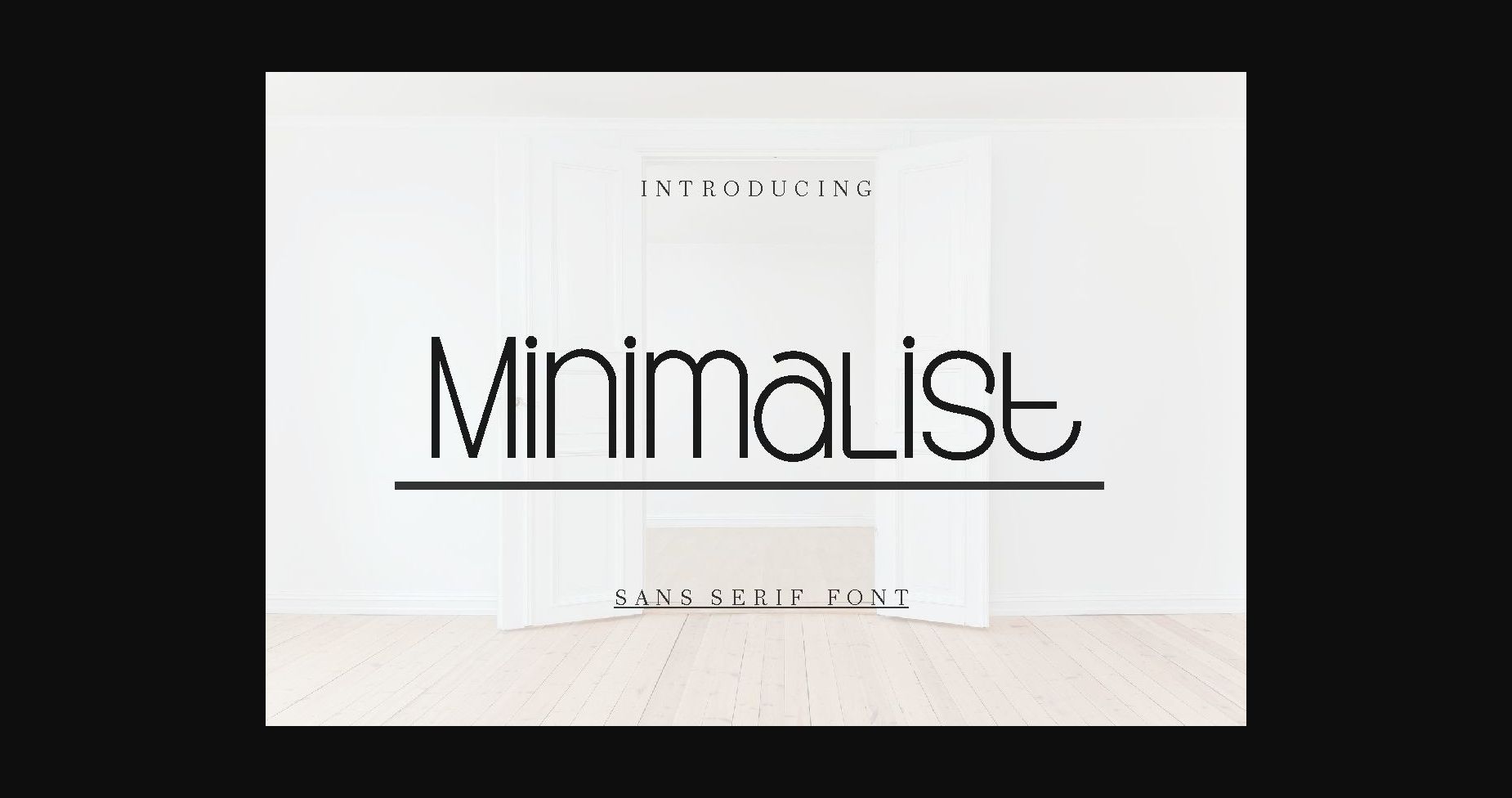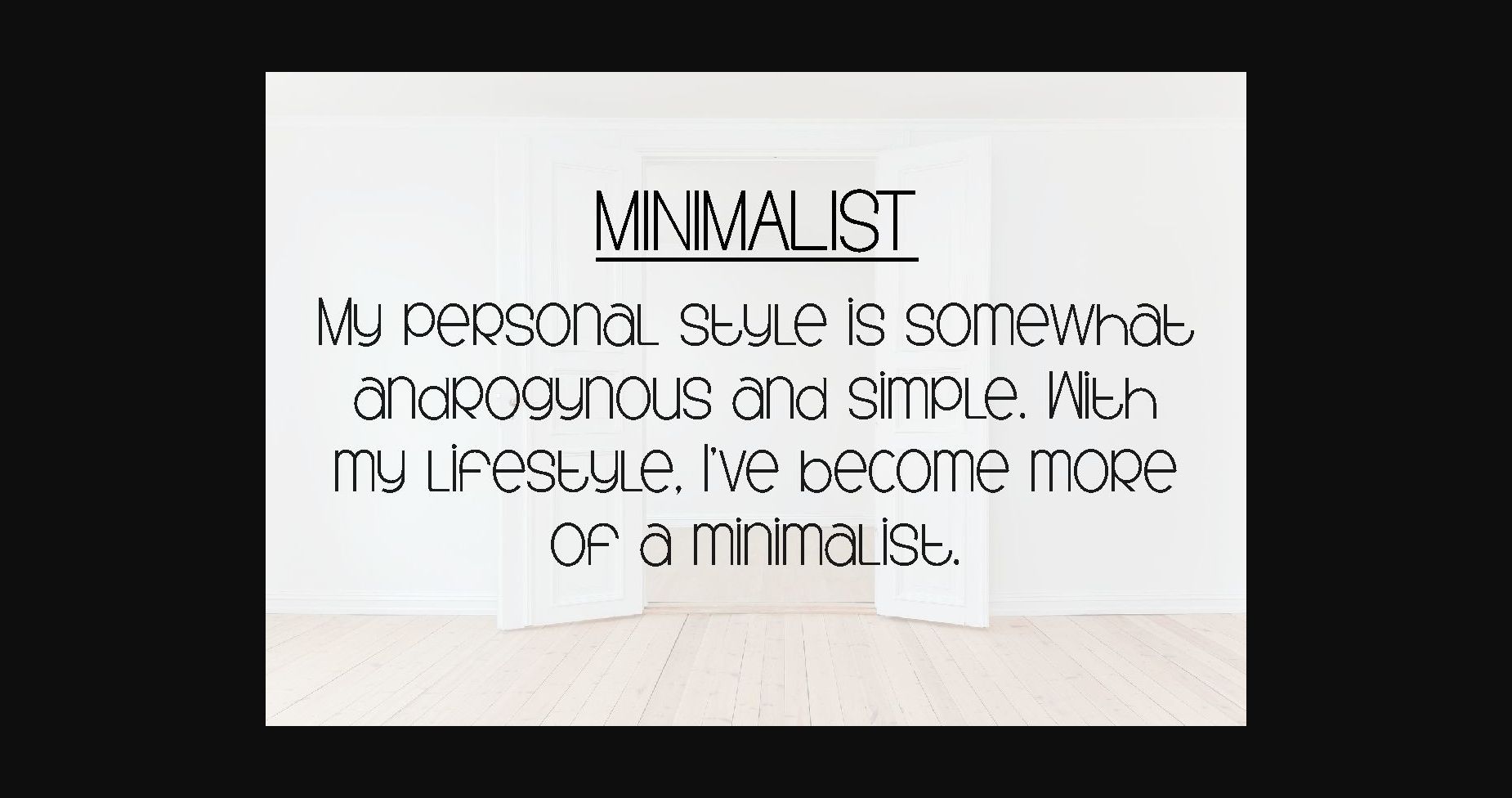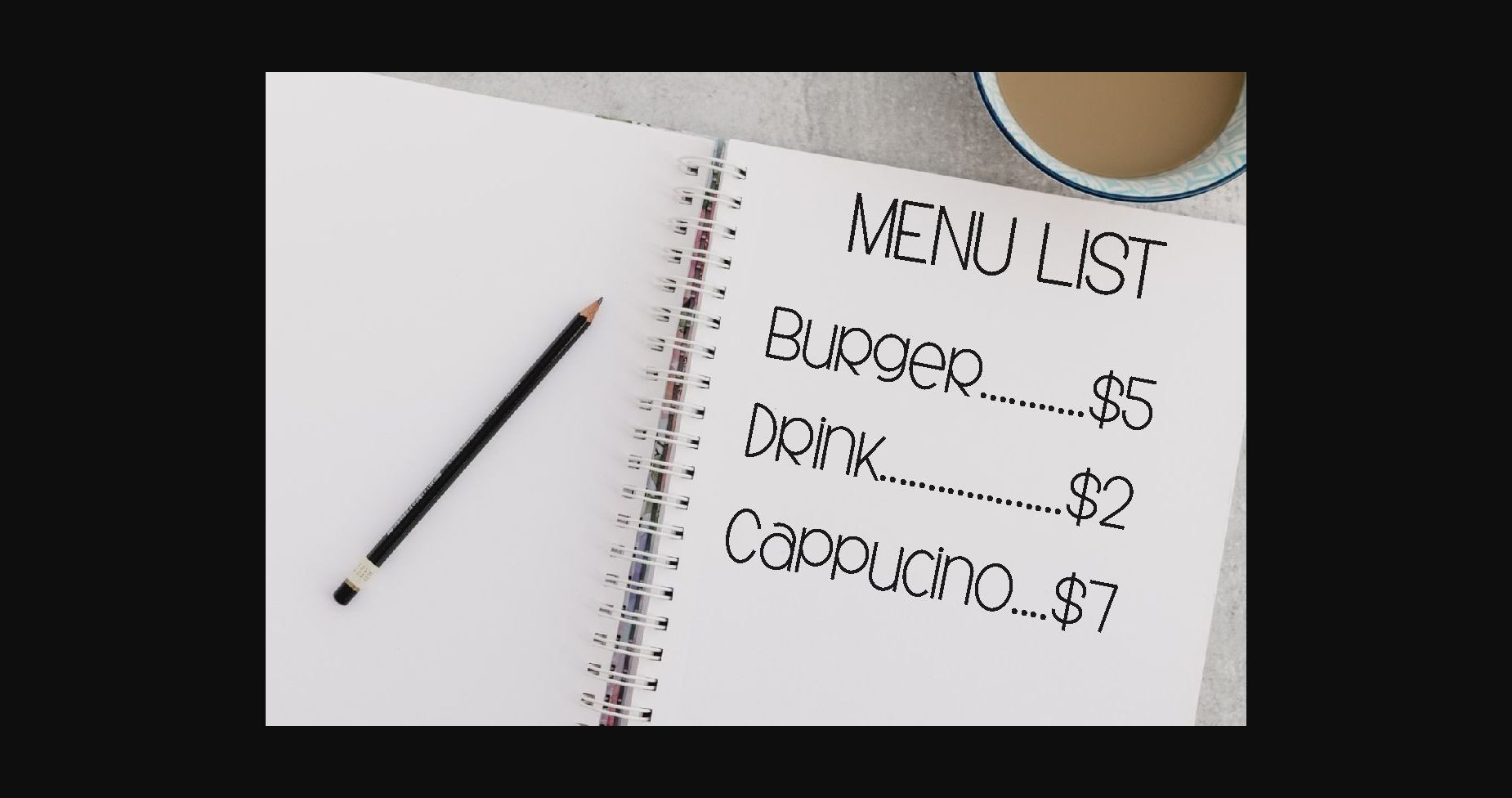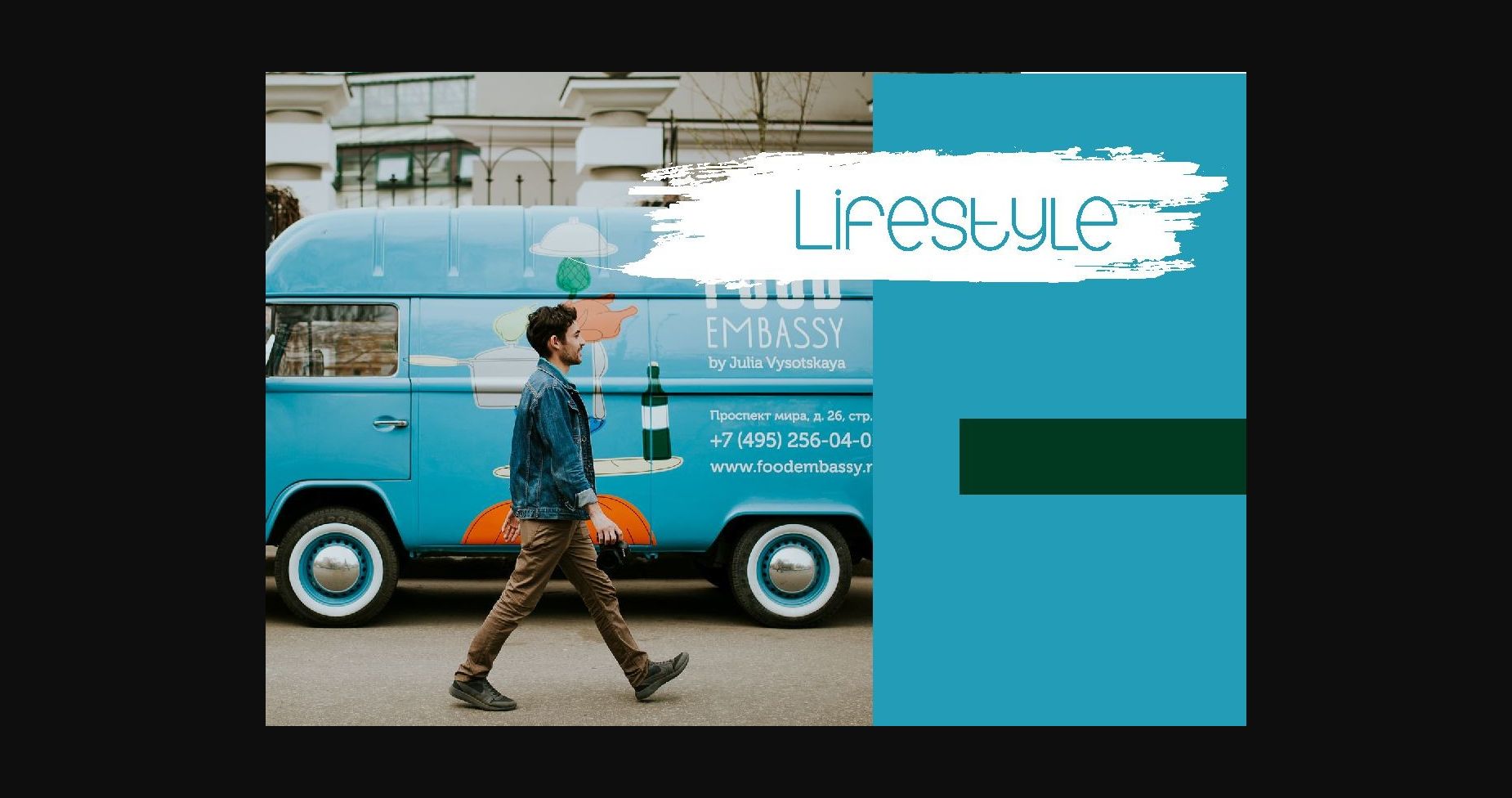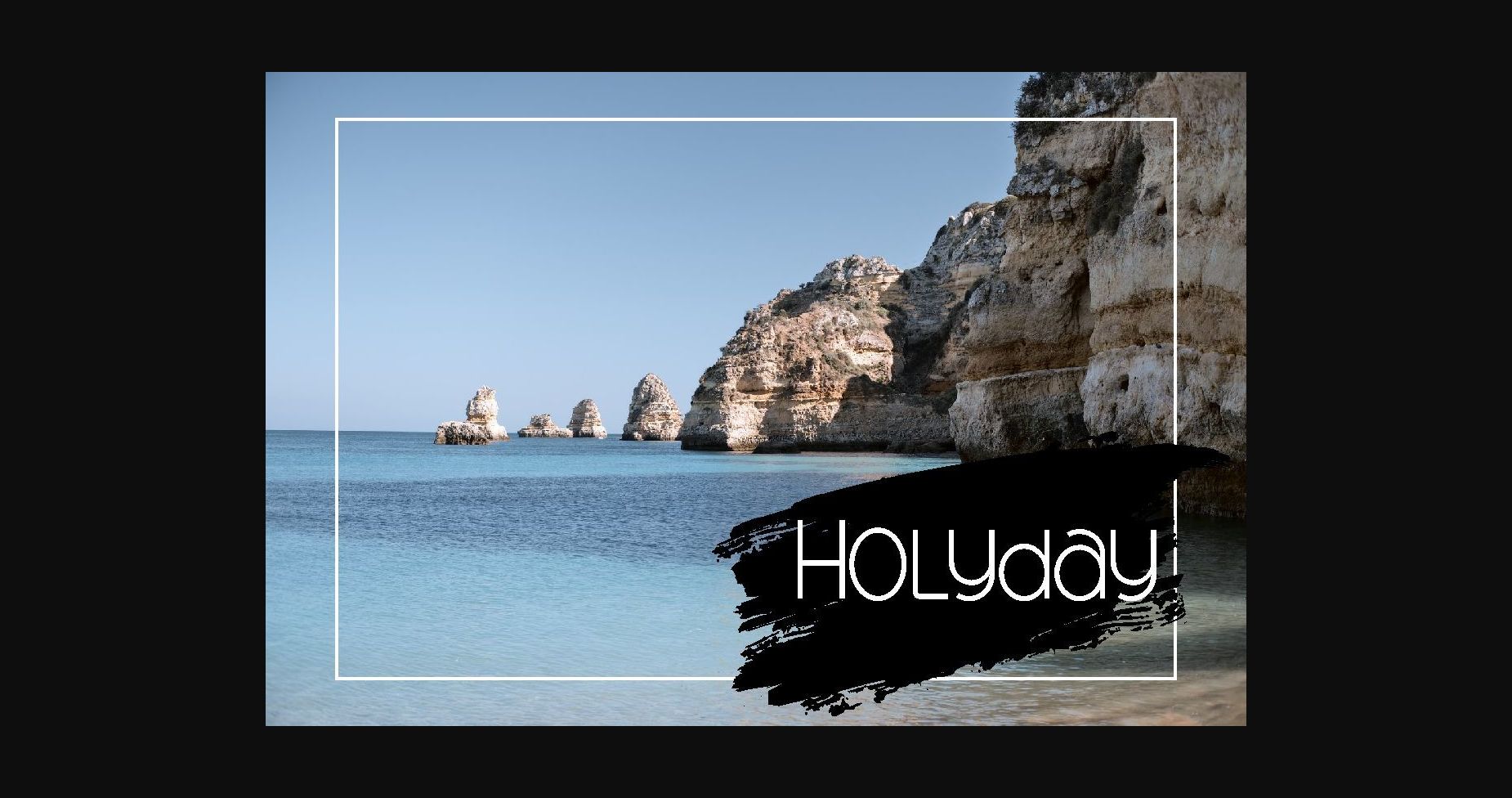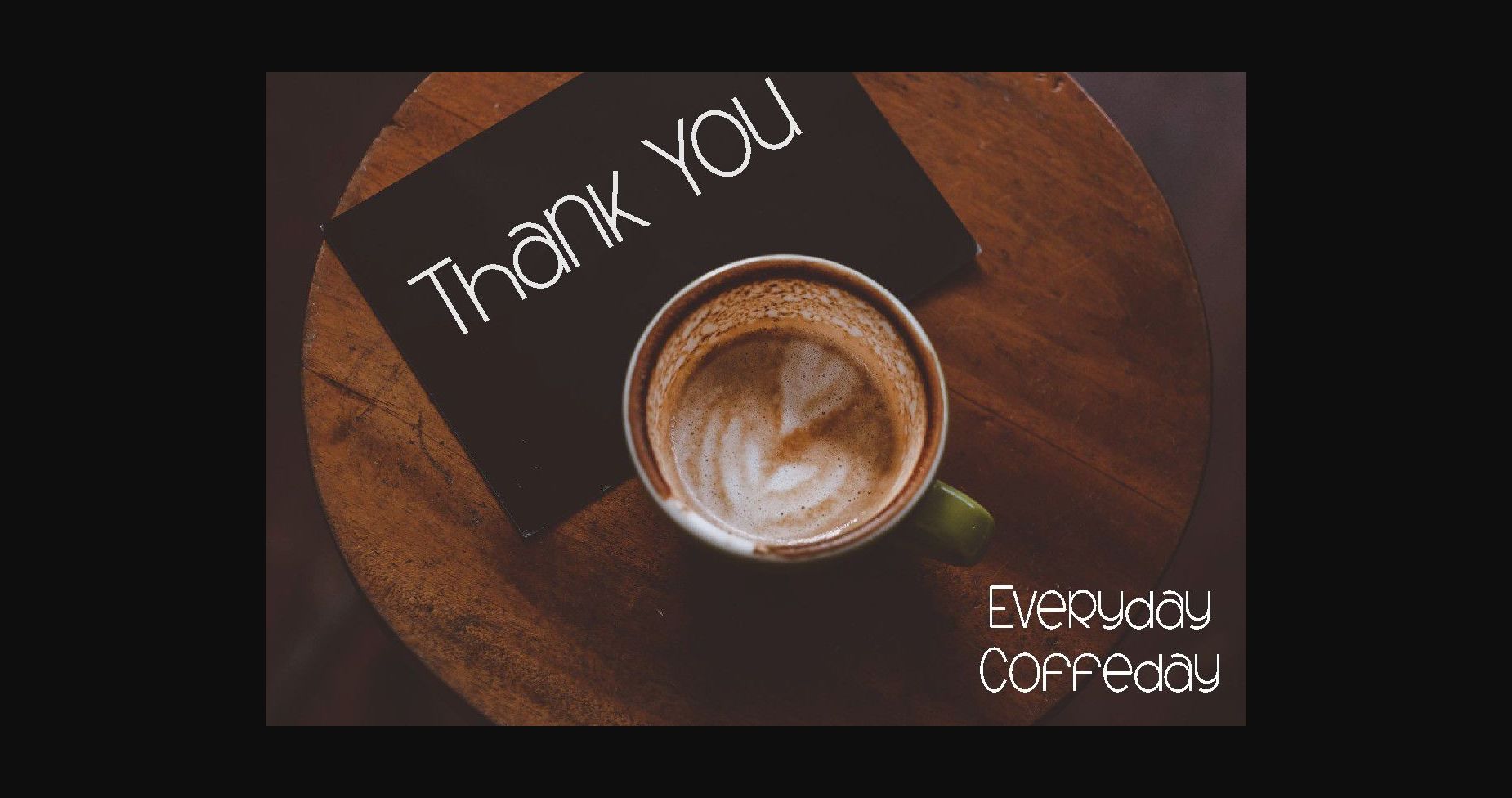
Minimalist Font
About Minimalist Font
Minimalist is a simple, clean and neat sans serif font. No matter the topic, this font will be an incredibly asset to your fonts’ library, as it has the potential to elevate any creation.